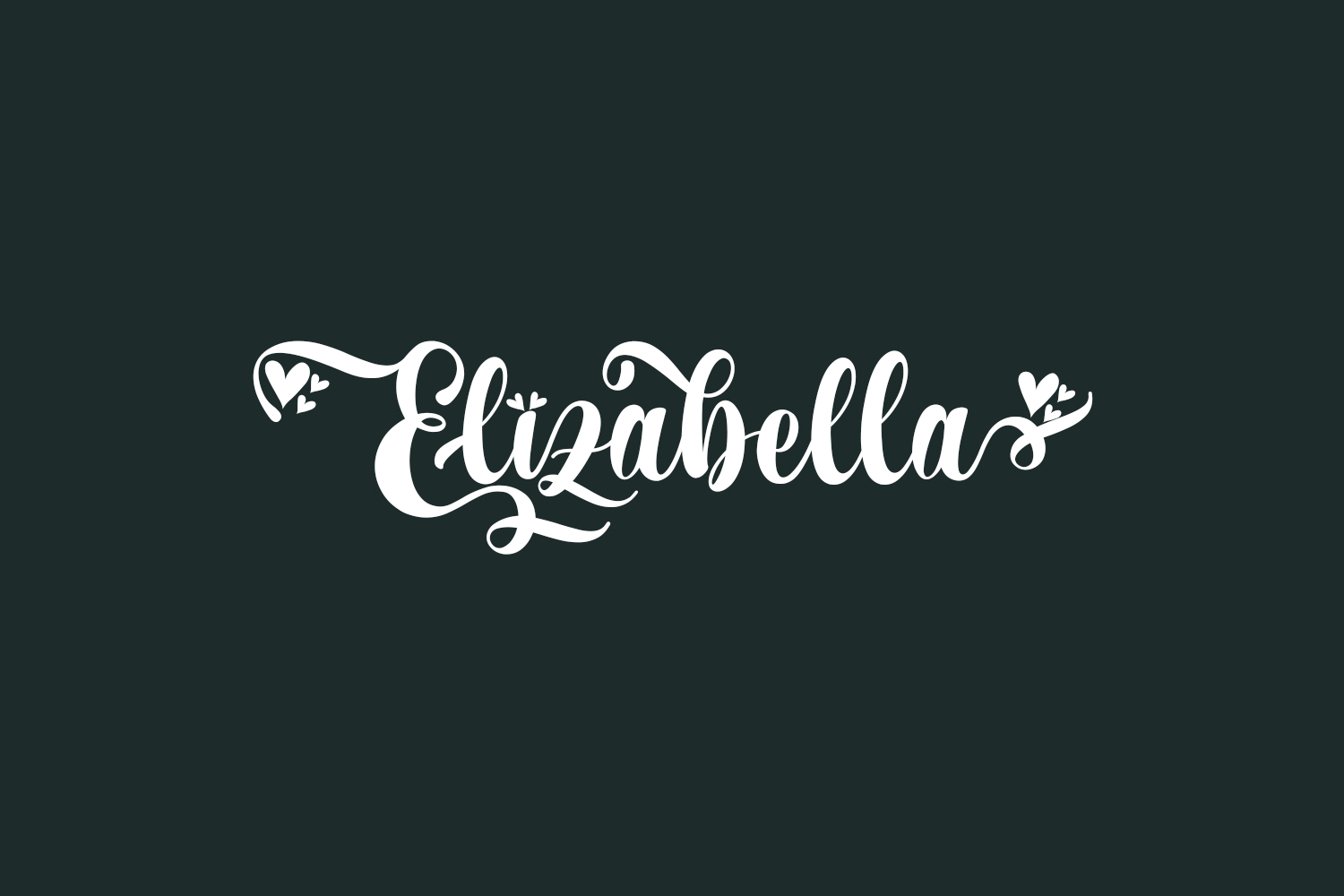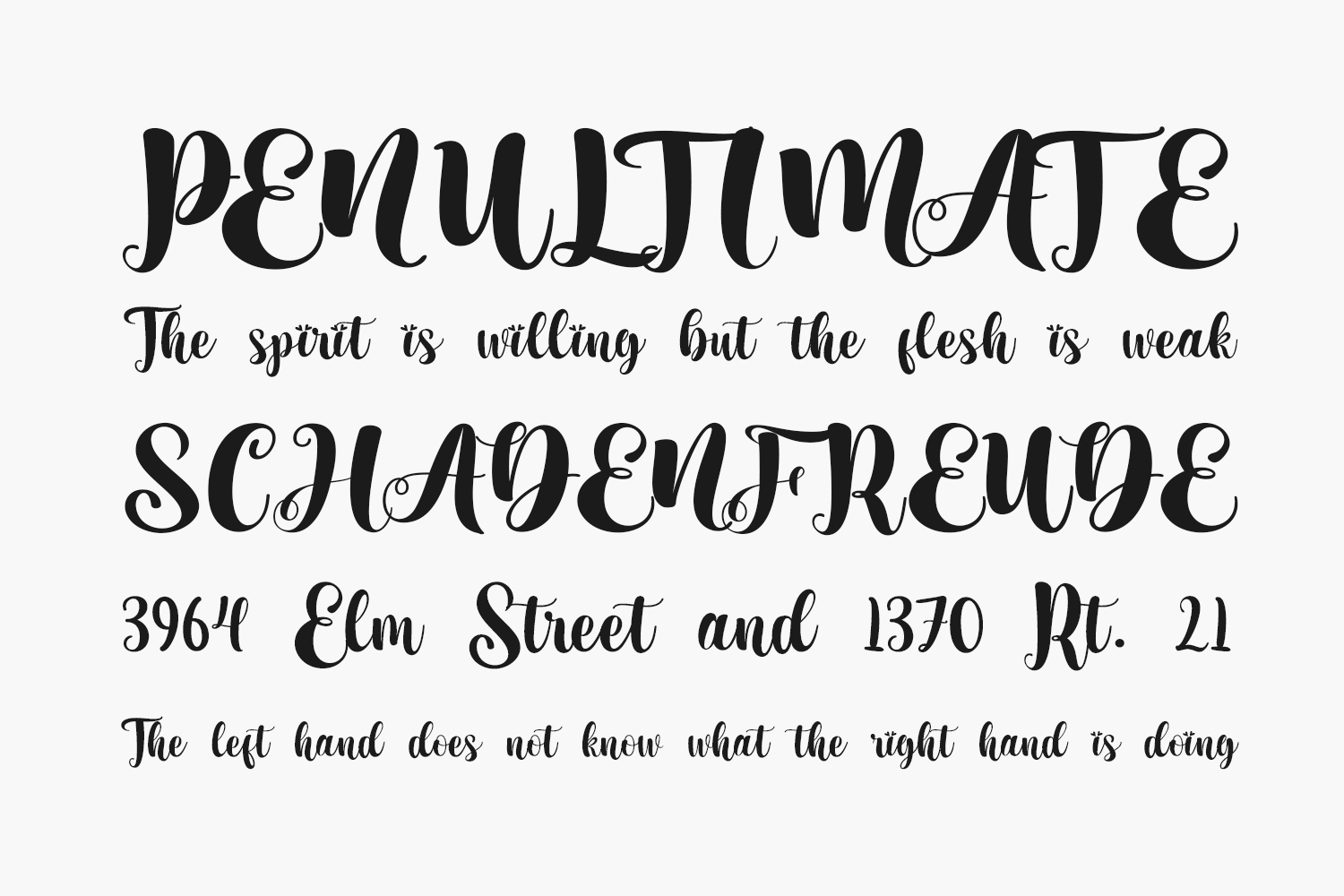
Elizabella Free Font is a dazzling script font. This font is neatly crafted and highly detailed. Elizabella Free Font was designed by Elevatype Co and is free for personal use only. Please purchase the full version for commercial use.